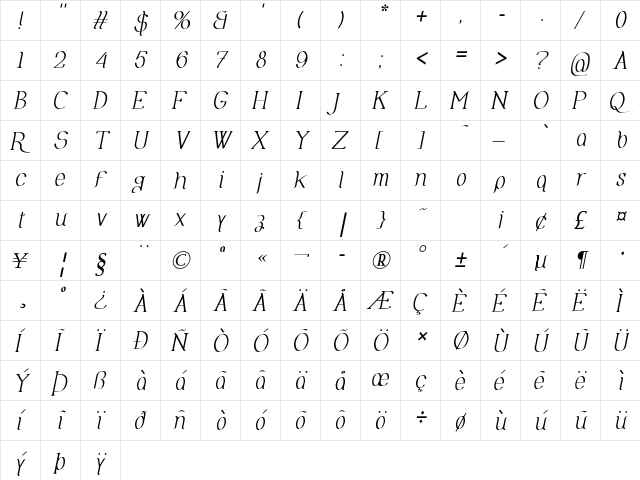
Olimpia Italic
Design Context for Olimpia Typeface
Olimpia offers clean, dependable letterforms without strong stylistic allegiance, making it a practical choice for designers who need flexibility. The slanted form adds forward momentum and visual energy.
Pro Tip: Try Olimpia for annotation and caption copy alongside an upright companion — the contrast in angle creates a dynamic but ordered typographic system.